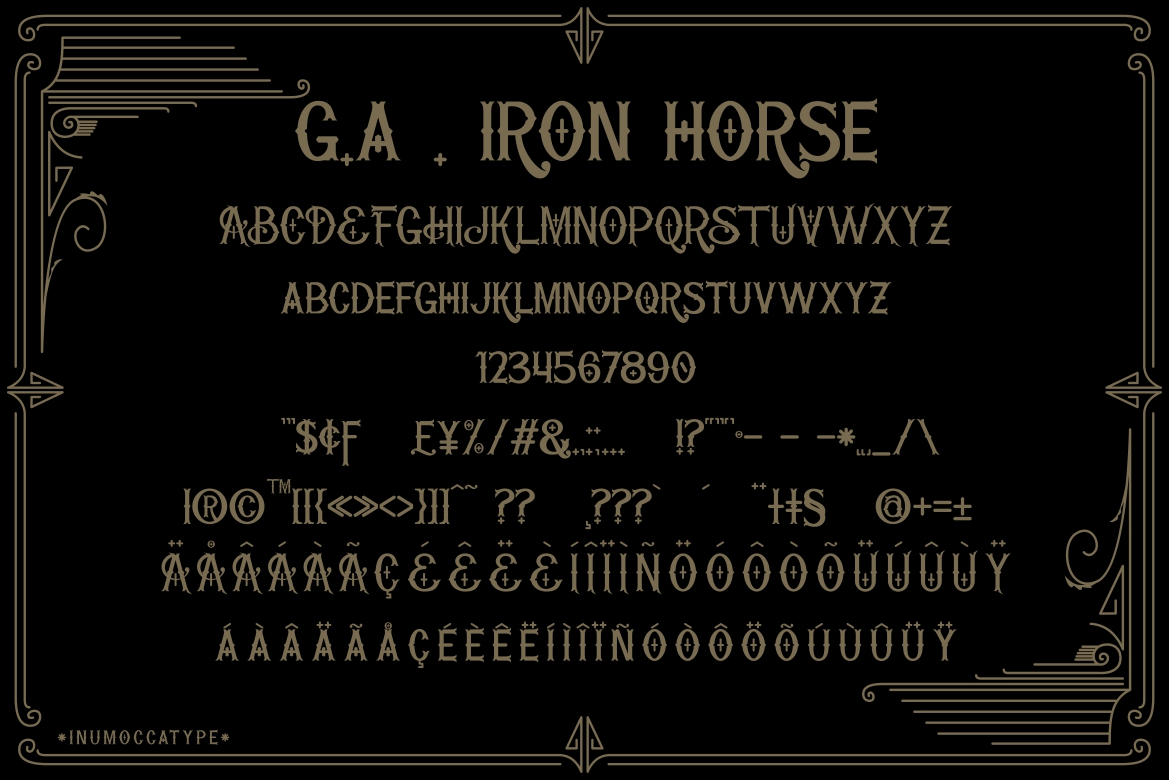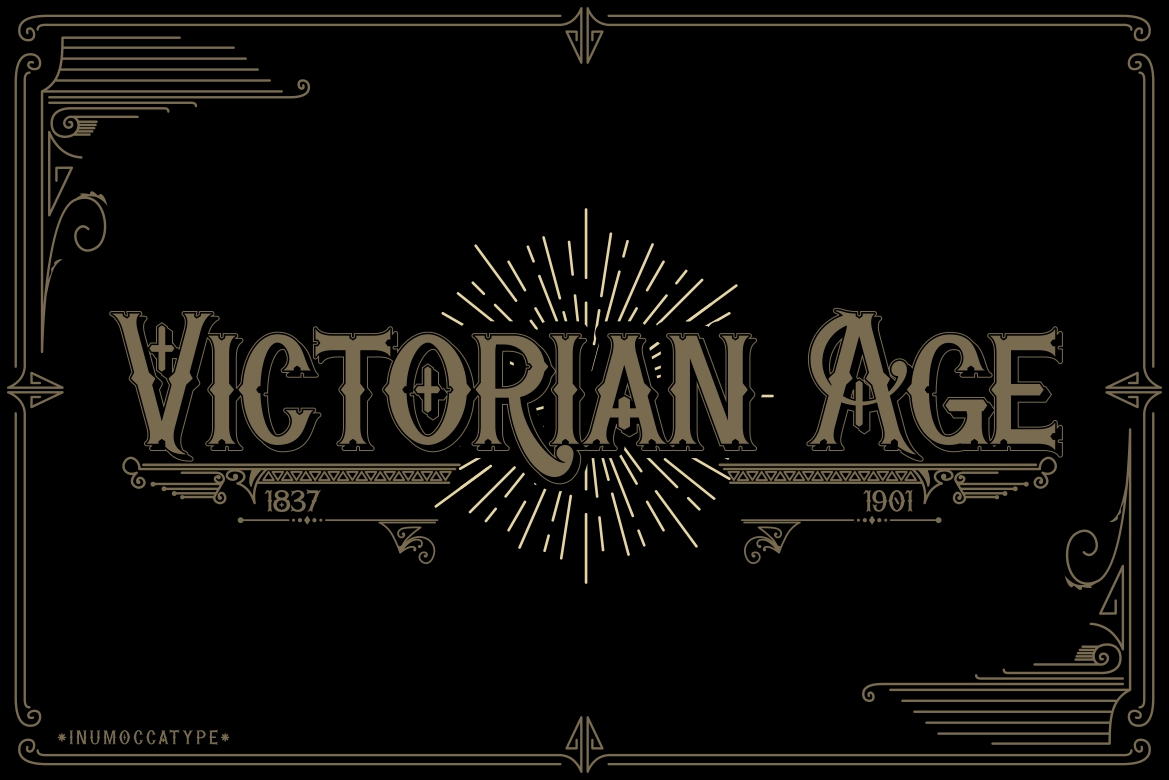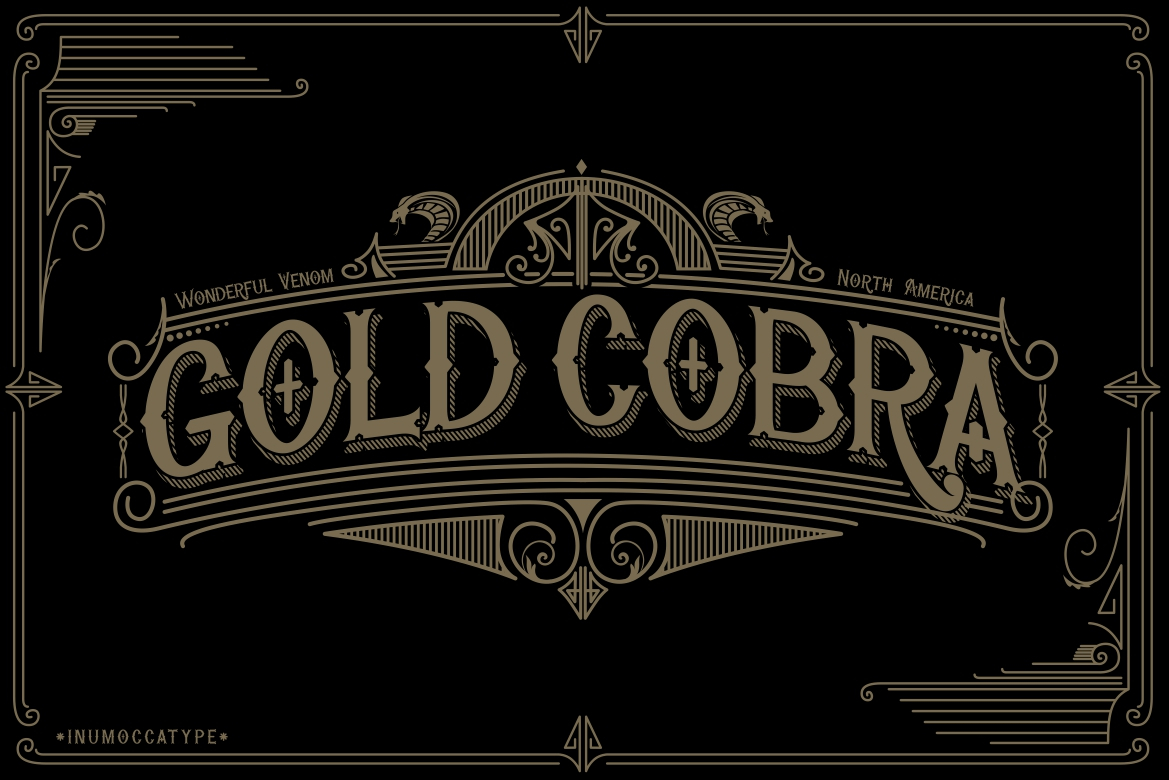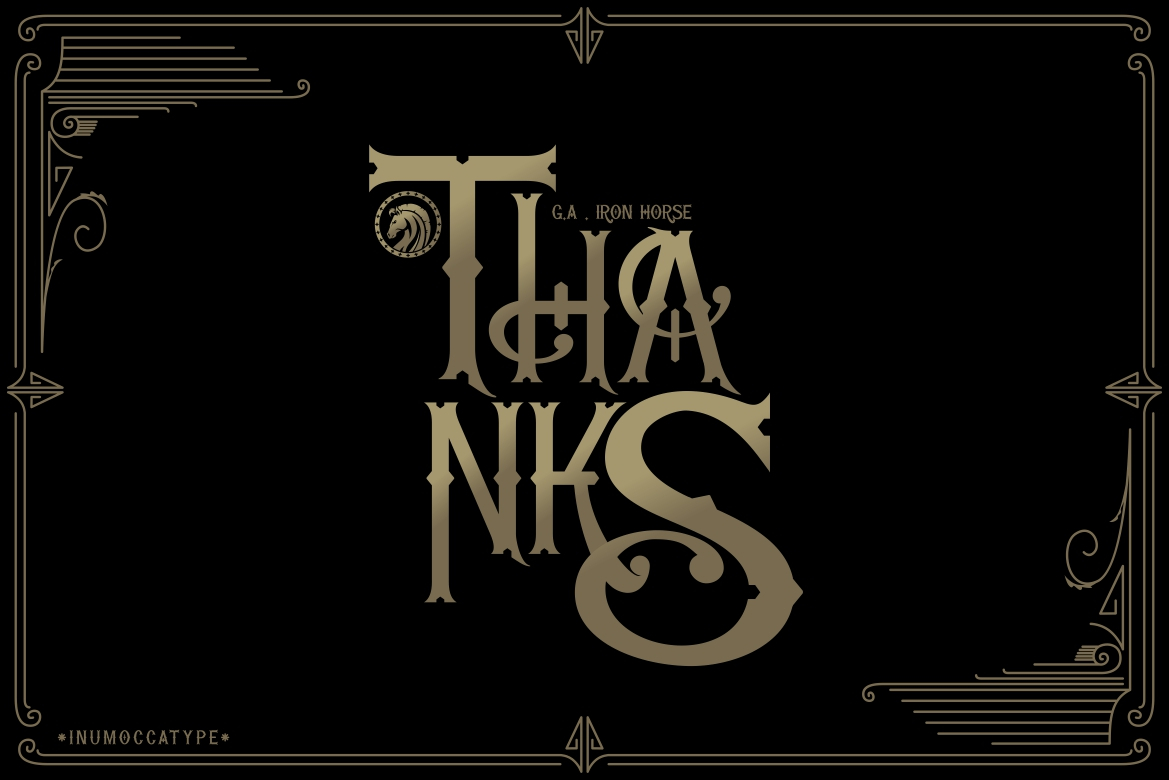
Iron Horse Font
About Iron Horse Font
Iron Horse is a bold blackletter font. This font would be ideal for writing web designs, cards, or pretty much anything else that requires a unique touch.